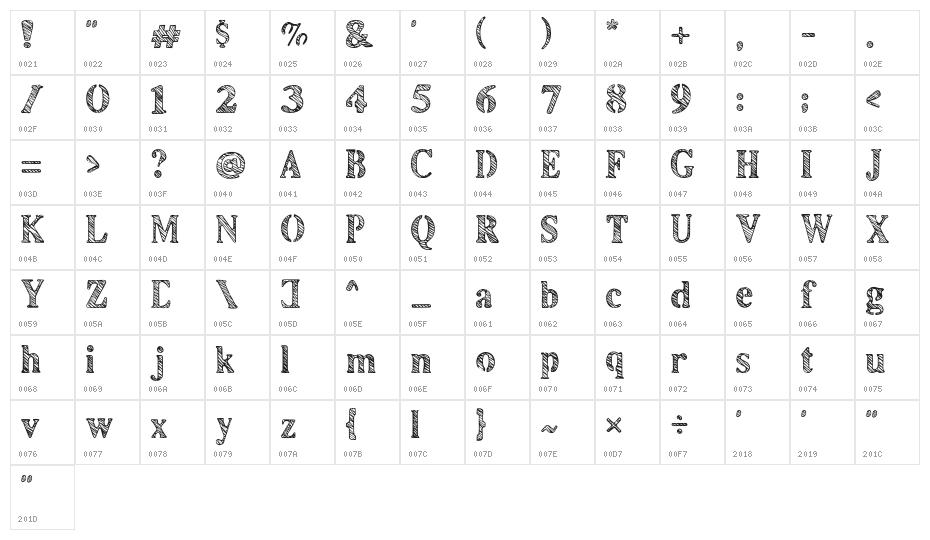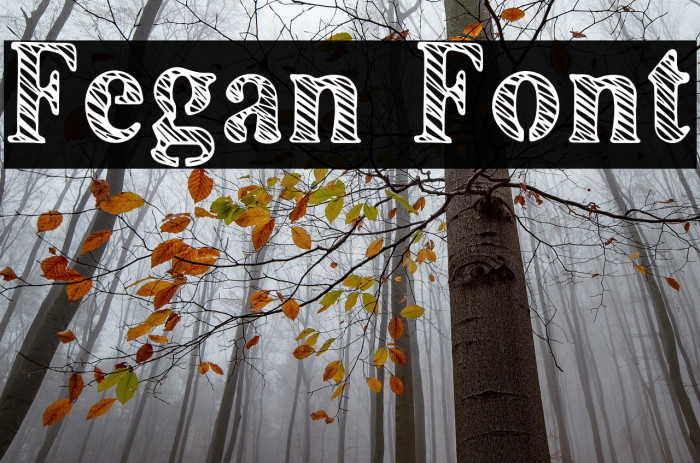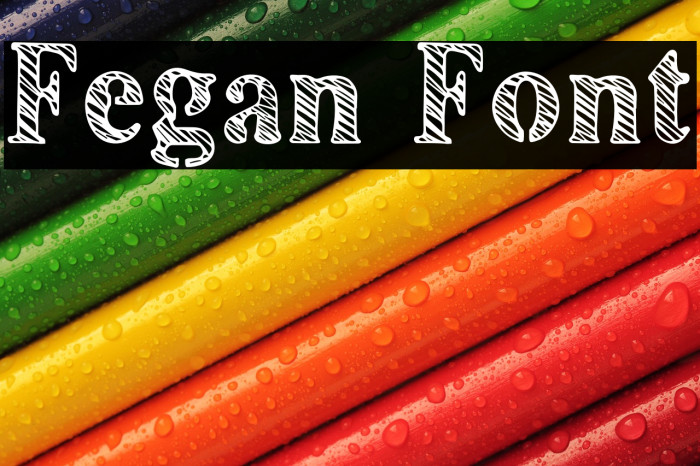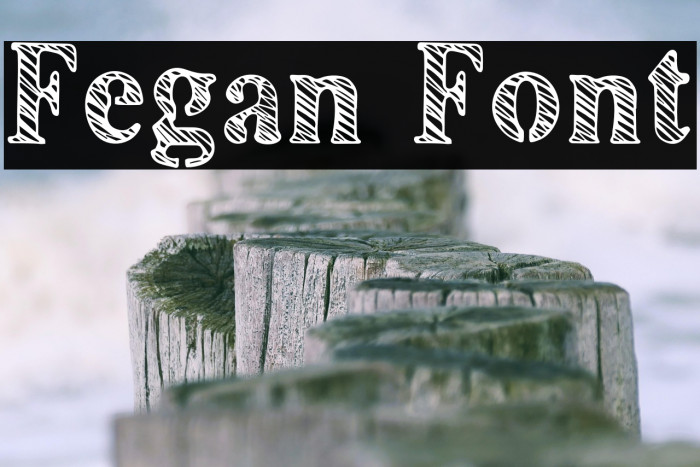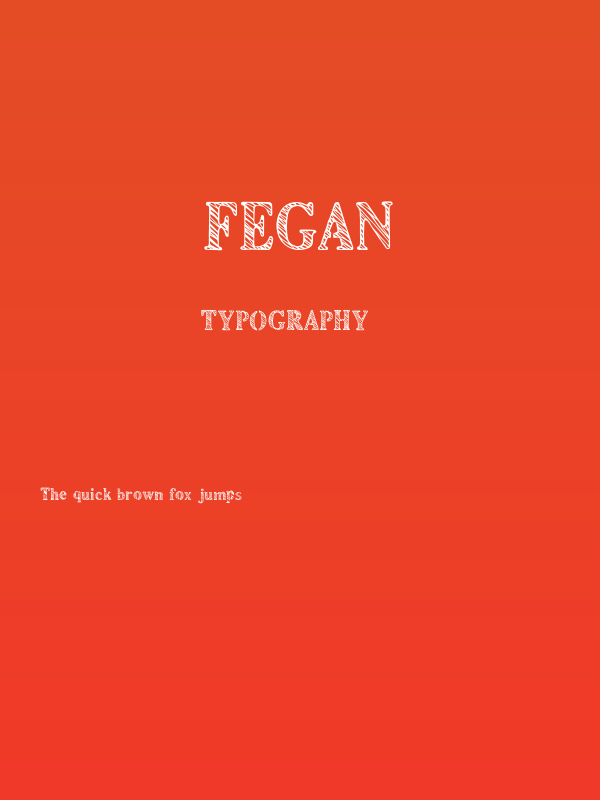
Fegan Font
Fegan Description
This font features a bold and decorative style with a unique hatched texture filling each character. The letters are serifed, adding a classic touch, while the diagonal lines within the characters create a sense of depth and dimension. The uppercase and lowercase letters maintain a consistent style, with the serifs adding a touch of elegance. The numerals and special characters follow the same design principles, ensuring uniformity across the typeface. This font's distinctive appearance makes it stand out, offering a blend of traditional serif elements with a modern, artistic twist.